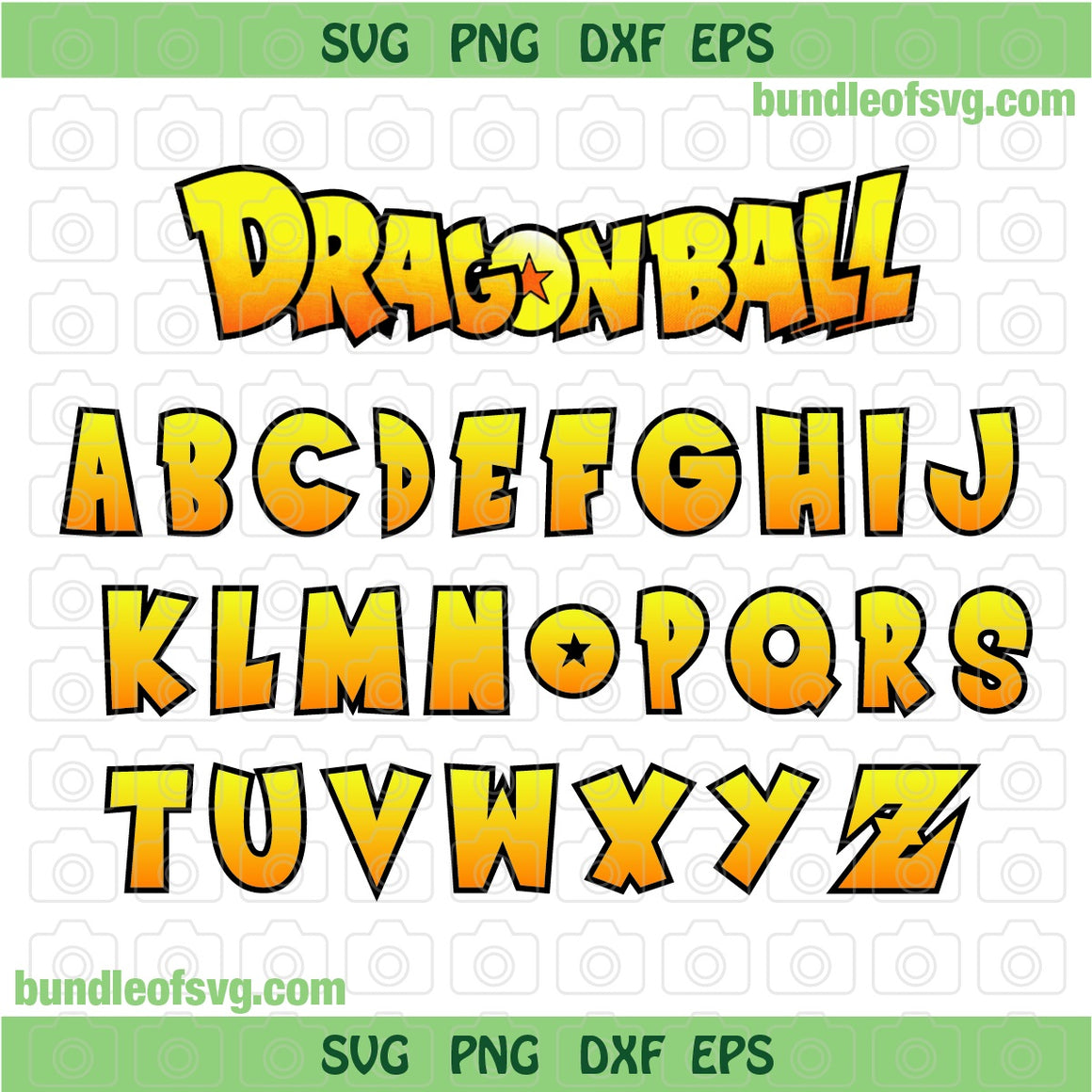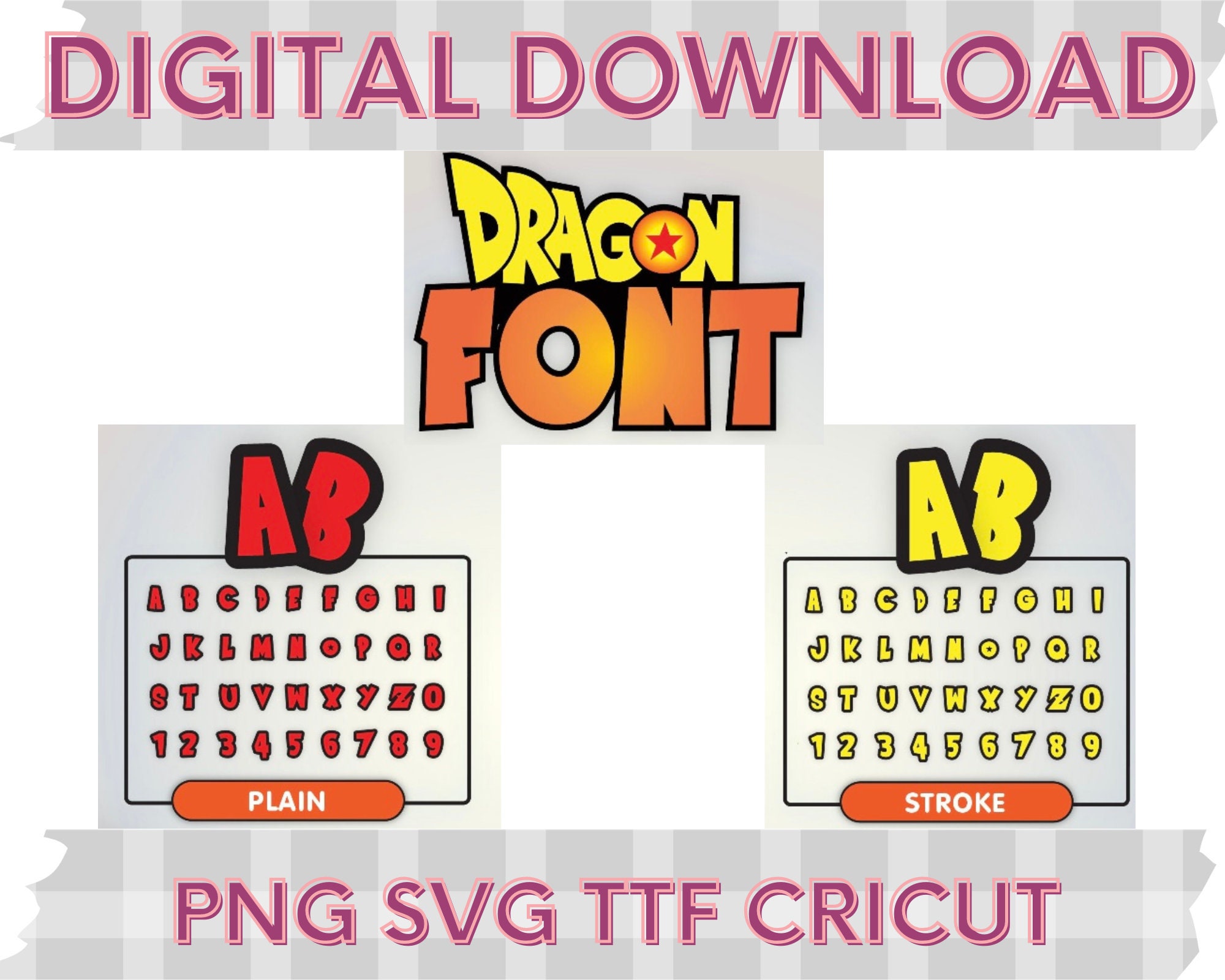
Dragon Ball Z Font Generator
Dragon Ball Z Font Generator - Try our text generator and create cool graphics for dragon ball z font, then you can save the font image to your pc, mac, linux, ios and. Web create stunning text effects with our font style text effect generator. You can download the font for free. Transform your words into bold, powerful fonts that capture the essence of. Designed by ben palmer, saiyan comes in three weights and is available in uppercase letters only. Web dragon ball z font generator & download is available free at fontbolt. Web saiyan sans by ben palmer. Web dragon ball z font generator & text effects. Whether you're a fan of cartoons, dbz, manga, or son goku himself, our font generator allows you to bring your text to life with the iconic.
Web create stunning text effects with our font style text effect generator. You can download the font for free. Whether you're a fan of cartoons, dbz, manga, or son goku himself, our font generator allows you to bring your text to life with the iconic. Web dragon ball z font generator & download is available free at fontbolt. Designed by ben palmer, saiyan comes in three weights and is available in uppercase letters only. Web dragon ball z font generator & text effects. Transform your words into bold, powerful fonts that capture the essence of. Web saiyan sans by ben palmer. Try our text generator and create cool graphics for dragon ball z font, then you can save the font image to your pc, mac, linux, ios and.
Whether you're a fan of cartoons, dbz, manga, or son goku himself, our font generator allows you to bring your text to life with the iconic. Transform your words into bold, powerful fonts that capture the essence of. Web dragon ball z font generator & text effects. You can download the font for free. Try our text generator and create cool graphics for dragon ball z font, then you can save the font image to your pc, mac, linux, ios and. Web saiyan sans by ben palmer. Web dragon ball z font generator & download is available free at fontbolt. Designed by ben palmer, saiyan comes in three weights and is available in uppercase letters only. Web create stunning text effects with our font style text effect generator.
Transform your words into bold, powerful fonts that capture the essence of. Whether you're a fan of cartoons, dbz, manga, or son goku himself, our font generator allows you to bring your text to life with the iconic. You can download the font for free. Web saiyan sans by ben palmer. Web create stunning text effects with our font style.
You can download the font for free. Web dragon ball z font generator & text effects. Transform your words into bold, powerful fonts that capture the essence of. Web create stunning text effects with our font style text effect generator. Designed by ben palmer, saiyan comes in three weights and is available in uppercase letters only.
Transform your words into bold, powerful fonts that capture the essence of. Designed by ben palmer, saiyan comes in three weights and is available in uppercase letters only. Web saiyan sans by ben palmer. Web create stunning text effects with our font style text effect generator. Web dragon ball z font generator & text effects.
Try our text generator and create cool graphics for dragon ball z font, then you can save the font image to your pc, mac, linux, ios and. Web dragon ball z font generator & text effects. Web create stunning text effects with our font style text effect generator. You can download the font for free. Web dragon ball z font.
Web saiyan sans by ben palmer. You can download the font for free. Whether you're a fan of cartoons, dbz, manga, or son goku himself, our font generator allows you to bring your text to life with the iconic. Web dragon ball z font generator & text effects. Try our text generator and create cool graphics for dragon ball z.
Whether you're a fan of cartoons, dbz, manga, or son goku himself, our font generator allows you to bring your text to life with the iconic. Transform your words into bold, powerful fonts that capture the essence of. Web saiyan sans by ben palmer. Web create stunning text effects with our font style text effect generator. You can download the.
Whether you're a fan of cartoons, dbz, manga, or son goku himself, our font generator allows you to bring your text to life with the iconic. Try our text generator and create cool graphics for dragon ball z font, then you can save the font image to your pc, mac, linux, ios and. Transform your words into bold, powerful fonts.
You can download the font for free. Designed by ben palmer, saiyan comes in three weights and is available in uppercase letters only. Web dragon ball z font generator & text effects. Try our text generator and create cool graphics for dragon ball z font, then you can save the font image to your pc, mac, linux, ios and. Transform.
Web dragon ball z font generator & text effects. Web saiyan sans by ben palmer. Web dragon ball z font generator & download is available free at fontbolt. Designed by ben palmer, saiyan comes in three weights and is available in uppercase letters only. You can download the font for free.
Web Create Stunning Text Effects With Our Font Style Text Effect Generator.
Try our text generator and create cool graphics for dragon ball z font, then you can save the font image to your pc, mac, linux, ios and. Web dragon ball z font generator & text effects. You can download the font for free.